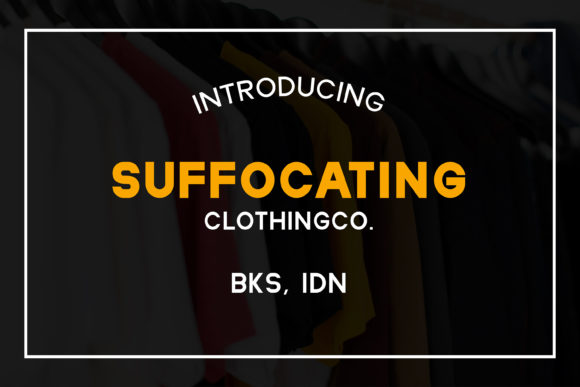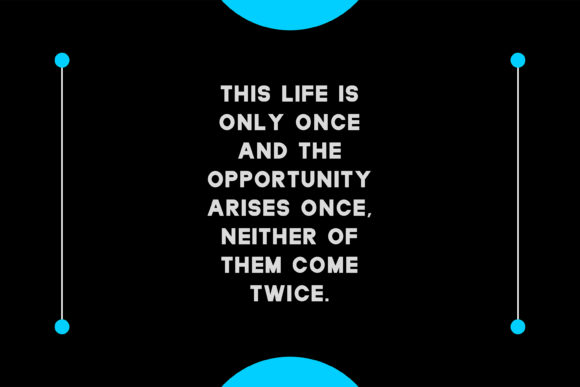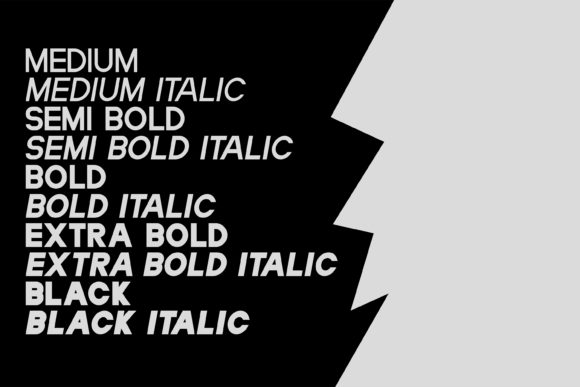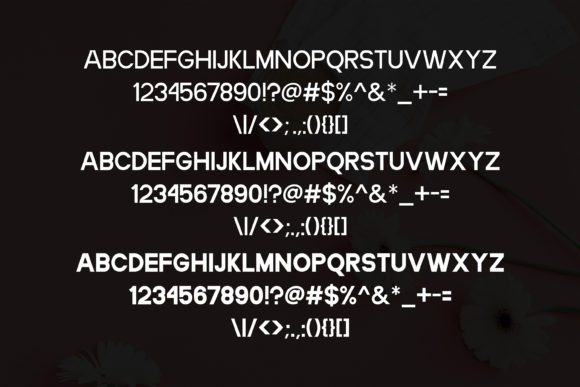
Discover the Elegance of Amelia Font: Elevate Your Designs with a Neat, Clean, and Sophisticated Sans Serif
In the world of design, typography plays a crucial role in conveying messages, evoking emotions, and creating a lasting impression. For designers and crafters seeking a font that embodies neatness, cleanliness, and elegance, look no further than the Amelia Font. This versatile sans serif font is poised to become your go-to choice for a wide array of projects, from digital content to print materials. In this article, we’ll explore the characteristics of the Amelia Font, its benefits, and how it can make your designs stand out.
The Essence of Amelia Font
Amelia Font is characterized by its sleek lines, balanced proportions, and a minimalist aesthetic that lends itself to both modern and classic designs. Its sans serif nature provides a clean and straightforward appearance, making it highly legible across various mediums. Whether you’re working on a website, a logo, a brochure, or any other design project, Amelia Font’s elegance and simplicity can enhance your work’s overall appeal.
Key Features of Amelia Font
- Neat and Clean Design: The font’s uncluttered and simple design ensures that your message is conveyed clearly and effectively.
- Elegant Aesthetic: Amelia Font adds a touch of sophistication to any design, making it perfect for projects that require a professional look.
- Versatility: Its sans serif nature and balanced proportions make it suitable for a wide range of applications, from digital interfaces to print materials.
- High Legibility: The font’s clear and straightforward design ensures high readability, even at smaller sizes.
The Amelia Font offers several advantages for designers and crafters looking to elevate their projects:
- Time-Saving: With its ready-to-use design, Amelia Font saves you time that would otherwise be spent on custom typography.
- Consistency: Using a consistent font across your project enhances its professional appearance and readability.
- Customization: Despite its clean and simple nature, Amelia Font can be easily customized to fit your project’s specific needs, whether through color changes, size adjustments, or creative integrations.
Amelia Font is more than just a typeface; it’s a design tool that can elevate your projects with its neat, clean, and elegant sans serif appearance. Its versatility, legibility, and aesthetic appeal make it an excellent choice for designers and crafters aiming to create impactful and professional designs. By incorporating Amelia Font into your workflow, you’re not just choosing a font; you’re adopting a design philosophy that prioritizes clarity, elegance, and effectiveness. Get Amelia Font today and discover how it can transform your designs into standout pieces that capture attention and convey your message with sophistication.